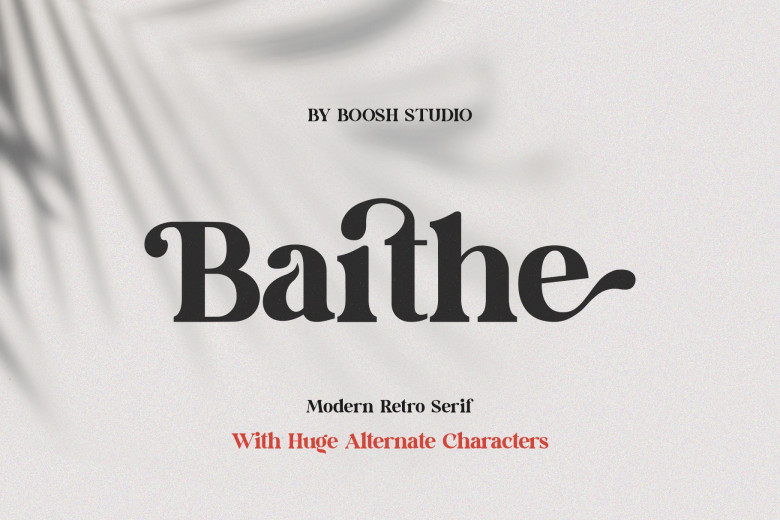
Baithe Font
Baithe Serif is kind, symmetrical, non-aggressive, beautiful classical serif font. He is a man of great personality. That especially looks great with invitation card designs, companies logos, movies titles, names of movies, business card designs, names of books, brand names and many other designs.
Baithe Serif Font